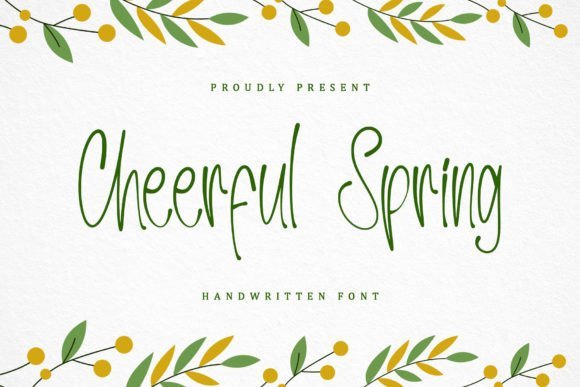
Spring into Style with the Cheerful Spring Font
There’s nothing quite like the feeling of pulling out a fresh notebook and watching the blank pages come alive with the scratch of a pen. For designers, this moment is a reminder that creativity is just around the corner, waiting to be unleashed. And with the right tools, the possibilities are endless.
Enter the Cheerful Spring Font, a stunning script font that embodies the essence of elegance and sophistication. Perfect for high-end design projects, this beautiful font is sure to leave a lasting impression. With its flowing strokes and delicate curves, it adds a touch of refinement to any text, while its stylish embellishments add a dash of flair. Whether you’re crafting a luxury brand, designing an invitation, or working on a high-end project, the Cheerful Spring Font is an invaluable asset in your design toolkit.
Cheerful Spring Font Key Features
- Unique Characteristics: Cheerful Spring Font features a distinctive, hand-drawn feel with a playful, whimsical touch, making it perfect for creating eye-catching designs.
- Character Set: The font includes a comprehensive character set, including uppercase and lowercase letters, numerals, punctuation marks, and special characters.
- Font Style: Cheerful Spring Font is available in several styles, including Regular, Italic, Bold, and Bold Italic, allowing designers to choose the perfect look for their project.
Designer Review: Cheerful Spring Font
At first glance, the Cheerful Spring Font has a lot to offer. ✨ The font’s playful, whimsical feel immediately captures the eye and suggests a perfect fit for any spring or Easter-themed design project. ✨ The font’s unique characters, like the ampersand and the numeral “1”, are particularly noteworthy, adding a touch of personality to any text.
However, upon closer inspection, some limitations become apparent. ⚠️ The font’s spacing and kerning could be improved, resulting in occasional awkward word pairings. ⚠️ Additionally, the font’s design feels somewhat one-dimensional, lacking the depth and nuance of more complex fonts.
Overall, I would say that the Cheerful Spring Font is a solid choice for casual, low-stakes design projects. It’s a great option for blog headers, social media graphics, or other applications where a lighthearted, playful feel is desired. However, for more complex or high-stakes projects, I might recommend exploring other font options.
- Unique, playful characters
- Perfect for spring or Easter-themed designs
- Lighthearted, casual feel
- Suitable for blog headers, social media graphics, and other casual applications
Practical Application Guide for Cheerful Spring Font
Tips for Getting the Most Out of Cheerful Spring Font
Use Cheerful Spring Font to add a touch of whimsy and playfulness to your designs.
Pair it with bright and bold colors to create a visually appealing contrast.
Experiment with different font sizes and styles to add emphasis and hierarchy to your text.
Use Cheerful Spring Font for:
Creative projects such as invitations, posters, and social media graphics.
Branding materials such as logos and business cards.
Web design elements such as headings and buttons.